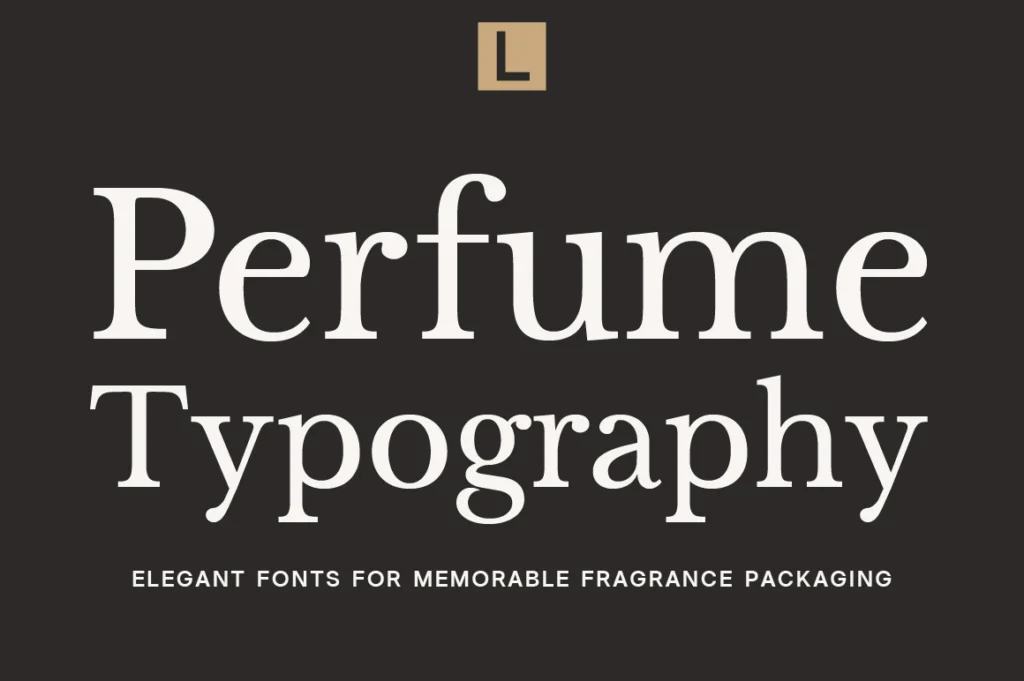
Luxury perfume is more than a fragrance—it is an experience. Long before customers discover the scent inside the bottle, they are introduced to the brand through its visual identity. Packaging, labels, bottle design, and typography work together to communicate elegance, craftsmanship, and exclusivity.
Typography plays a central role in this first impression. The right typeface can transform a simple perfume bottle into a luxurious product that immediately captures attention. Whether displayed on boutique shelves or featured in online stores, premium typography helps communicate quality before a customer even opens the cap.
Most luxury fragrance brands embrace timeless typography rather than following short-lived design trends. Elegant serif fonts often dominate premium perfume packaging because they evoke heritage, sophistication, and refinement. Their carefully balanced proportions create a sense of exclusivity that aligns naturally with high-end products.
Minimalist typography has also become increasingly popular among contemporary fragrance houses. Clean letterforms combined with generous white space allow the packaging itself to feel calm, modern, and luxurious. This understated approach gives every design element room to breathe, allowing the product to communicate confidence without unnecessary decoration.
Typography should always complement the personality of the fragrance. Romantic floral collections often benefit from graceful serif typefaces with delicate details, while bold woody or masculine fragrances may be better suited to stronger letterforms with confident proportions. Modern unisex fragrances frequently combine elegant serif headlines with minimalist sans-serif supporting text to achieve a balanced visual identity.
Packaging materials further influence typography choices. Embossed labels, foil stamping, textured papers, and glass bottles all interact differently with typefaces. Selecting fonts with clean construction and excellent legibility ensures that every detail remains crisp throughout the production process.
Consistency across branding is equally important. Customers should recognize the same visual language across perfume bottles, gift boxes, shopping bags, websites, advertisements, and social media campaigns. A unified typographic system strengthens brand recognition and reinforces a premium customer experience.
Professional typography also supports long-term brand growth. As fragrance collections expand into candles, body care products, room sprays, or luxury accessories, consistent typography helps maintain a cohesive identity across every product line.
Vescura
Vescura blends timeless serif elegance with contemporary refinement, making it an excellent choice for luxury fragrance logos, boutique perfume labels, and sophisticated packaging.
Becaure
Becaure delivers graceful proportions and refined details that beautifully complement beauty products, perfume collections, and premium wellness brands.
Montegar
Montegar offers bold yet elegant letterforms that help fragrance brands establish a distinctive and memorable visual identity.
Gaprio Display
Gaprio Display combines fashion-inspired aesthetics with strong editorial presence, making it perfect for perfume campaigns, luxury advertisements, and premium branding.
Vogera
Vogera presents a refined contemporary serif with elegant proportions, making it an excellent choice for luxury fragrance packaging, premium cosmetic branding, boutique labels, and sophisticated visual identities.
Cheqa
Cheqa features refined letterforms with a graceful contemporary touch, making it ideal for perfume packaging, luxury cosmetics, boutique beauty brands, and sophisticated editorial campaigns.
Conclusion
The finest perfume brands understand that luxury begins long before the fragrance is experienced. Every visual detail contributes to the story, and typography remains one of the strongest tools for communicating elegance, quality, and exclusivity.
By investing in thoughtfully designed typefaces, fragrance brands create memorable packaging, strengthen customer recognition, and build lasting emotional connections.